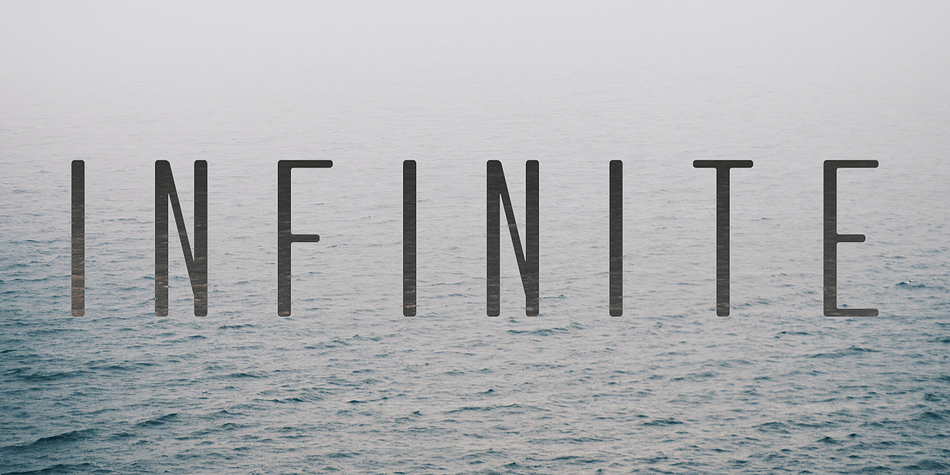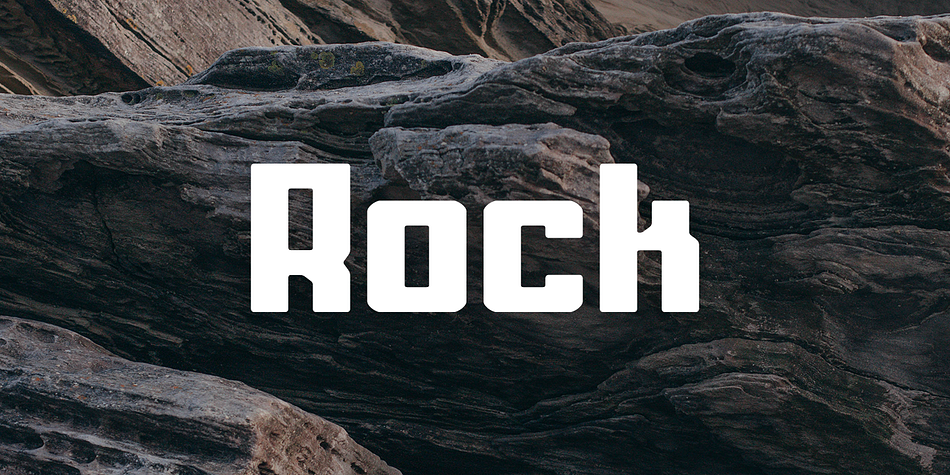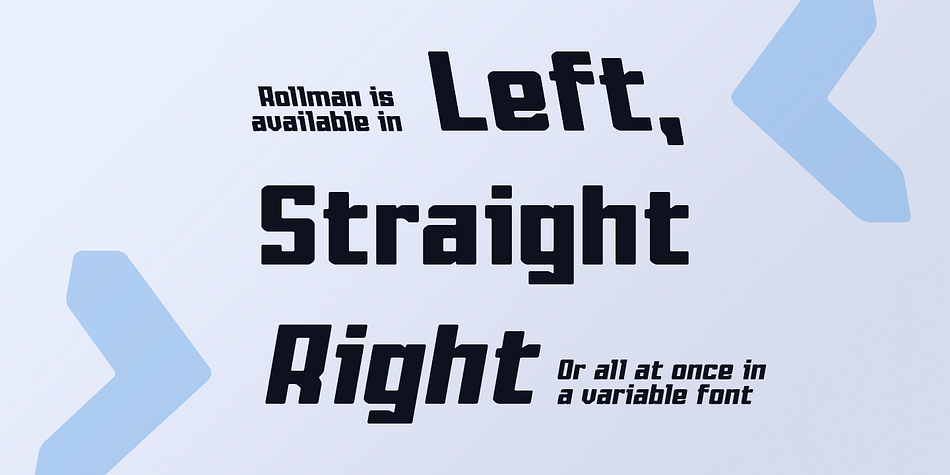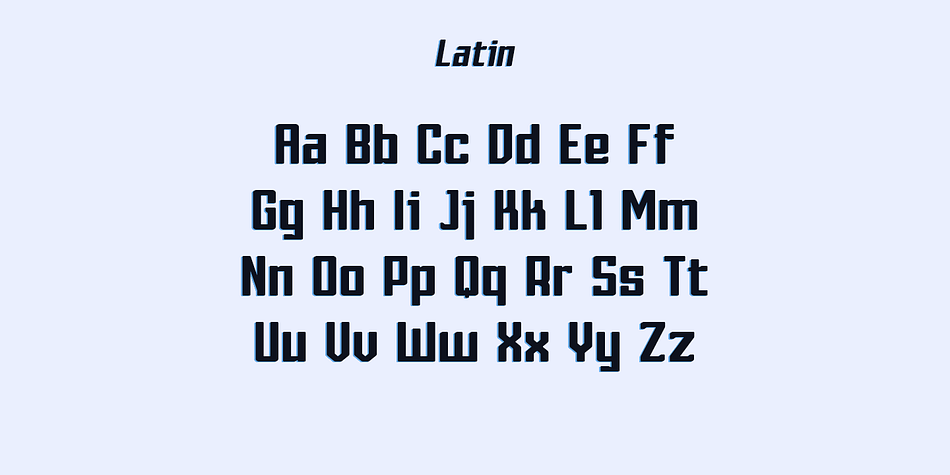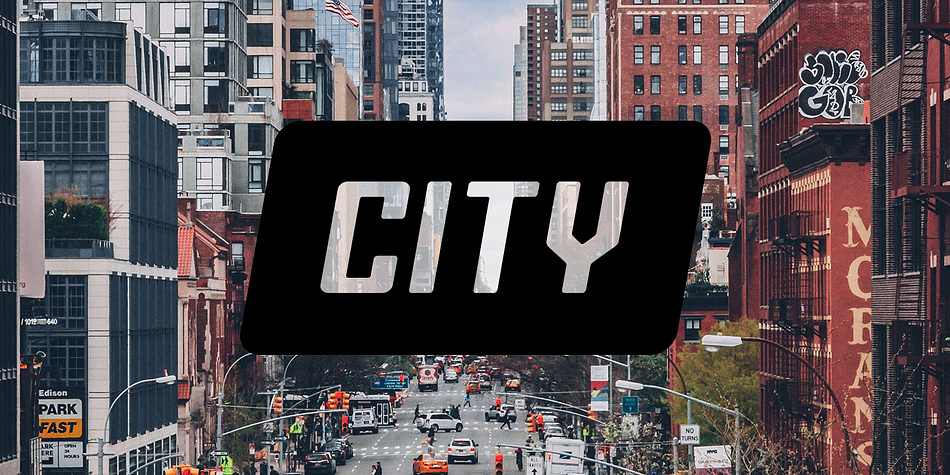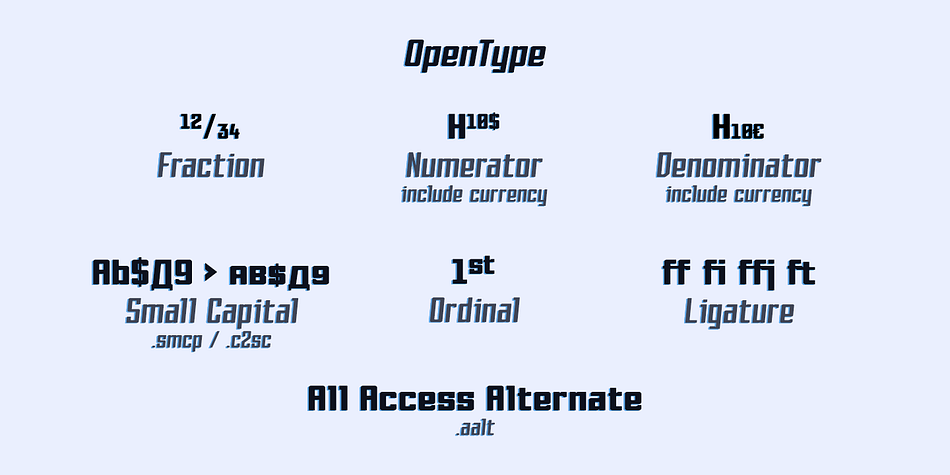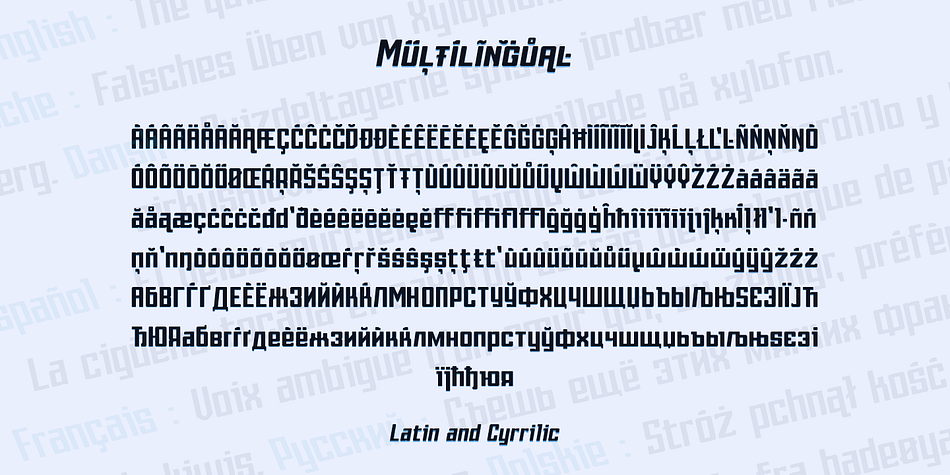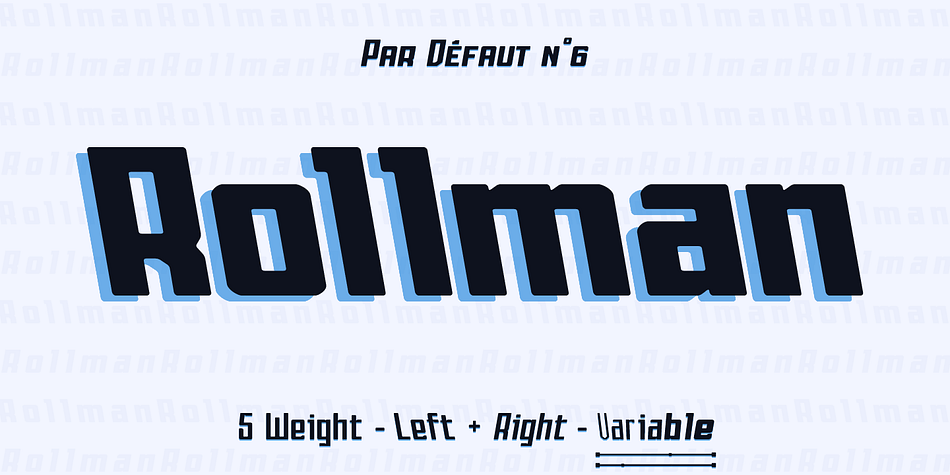
Rollman
Rollman is a display sans font family. This typeface has sixteen styles and was published by Par Défaut.
Rollman is a Diplay font family containing 16 Fonts (5 Weight; Left; Right; Straight and Variable),
covering many languages using latin and cyrillic alphabet.
It’s a perfect font for titles.
There are also 7 OpenType features (Numerator; Denominator; Fraction; Ordinals; Small Capital; All Access Alternate; Ligature).